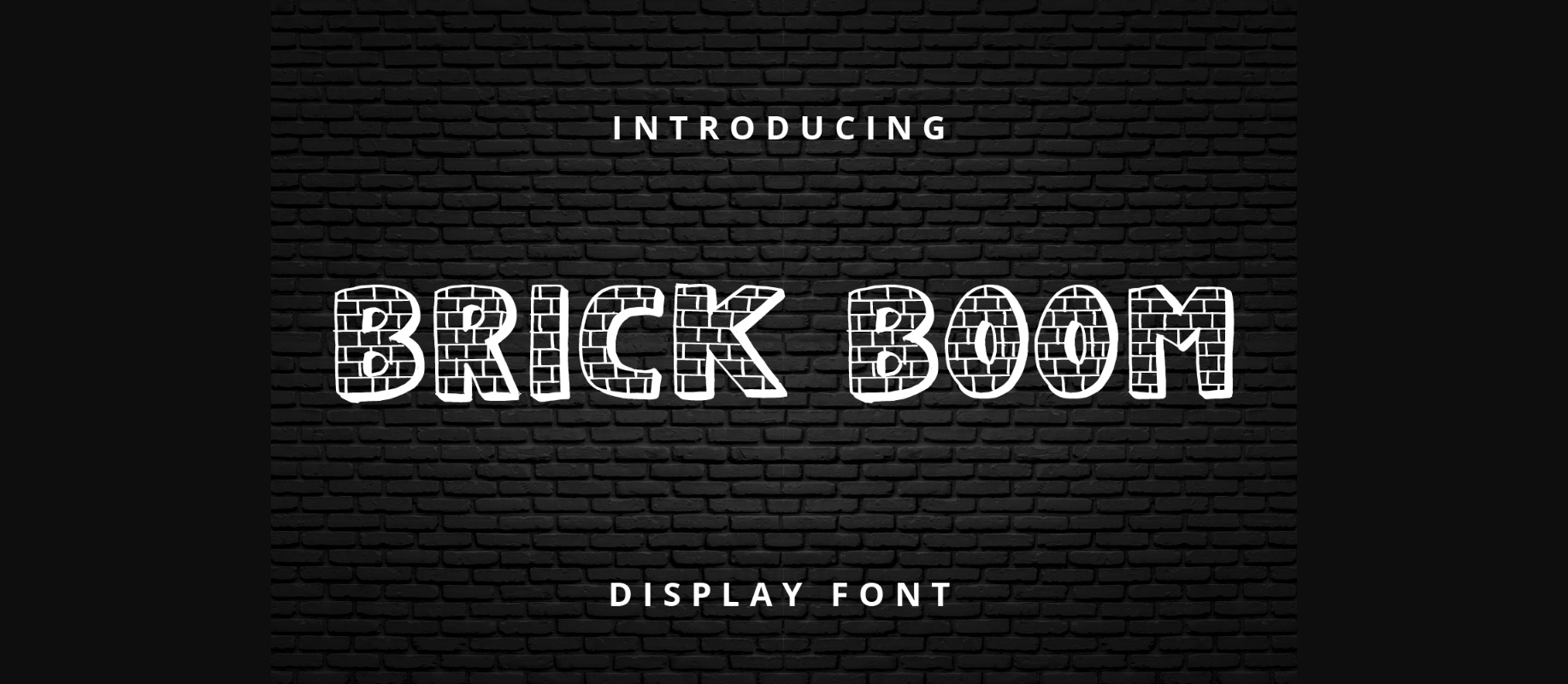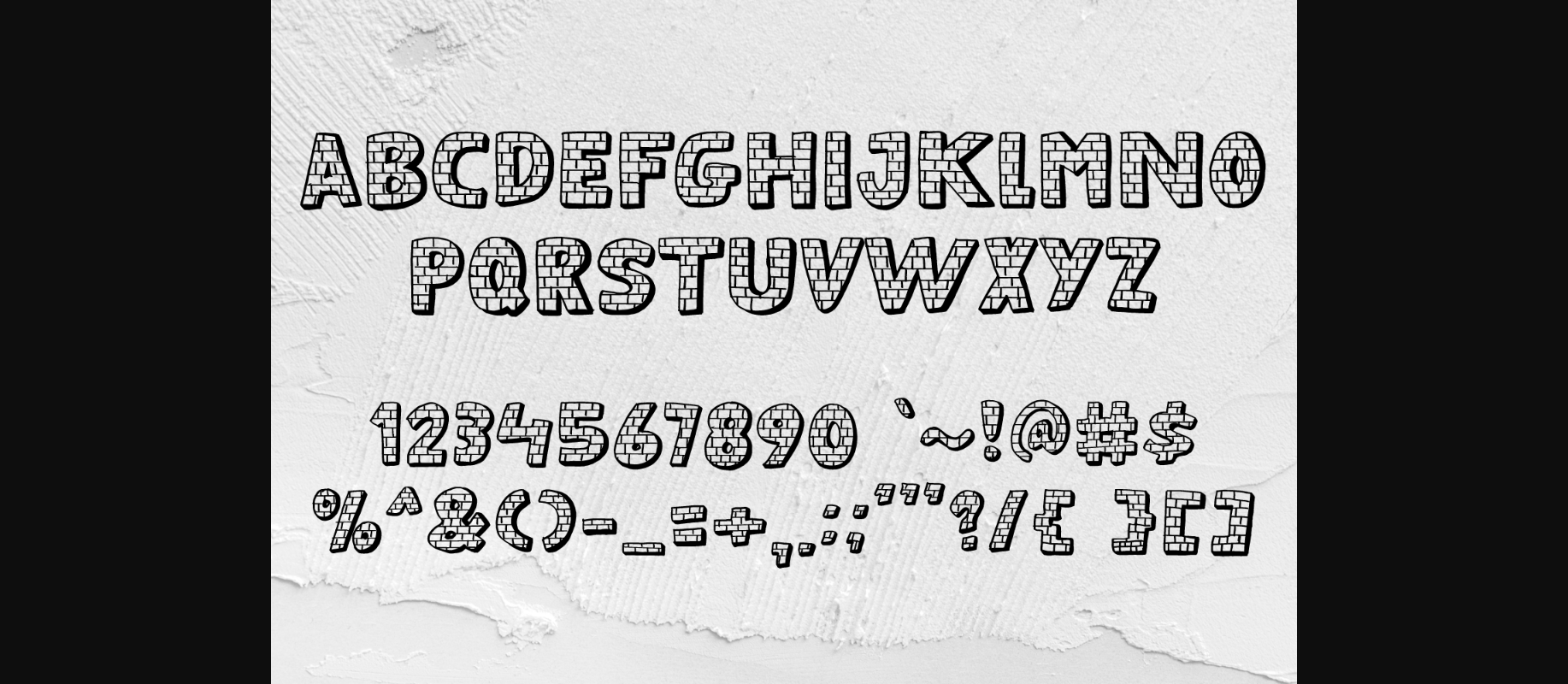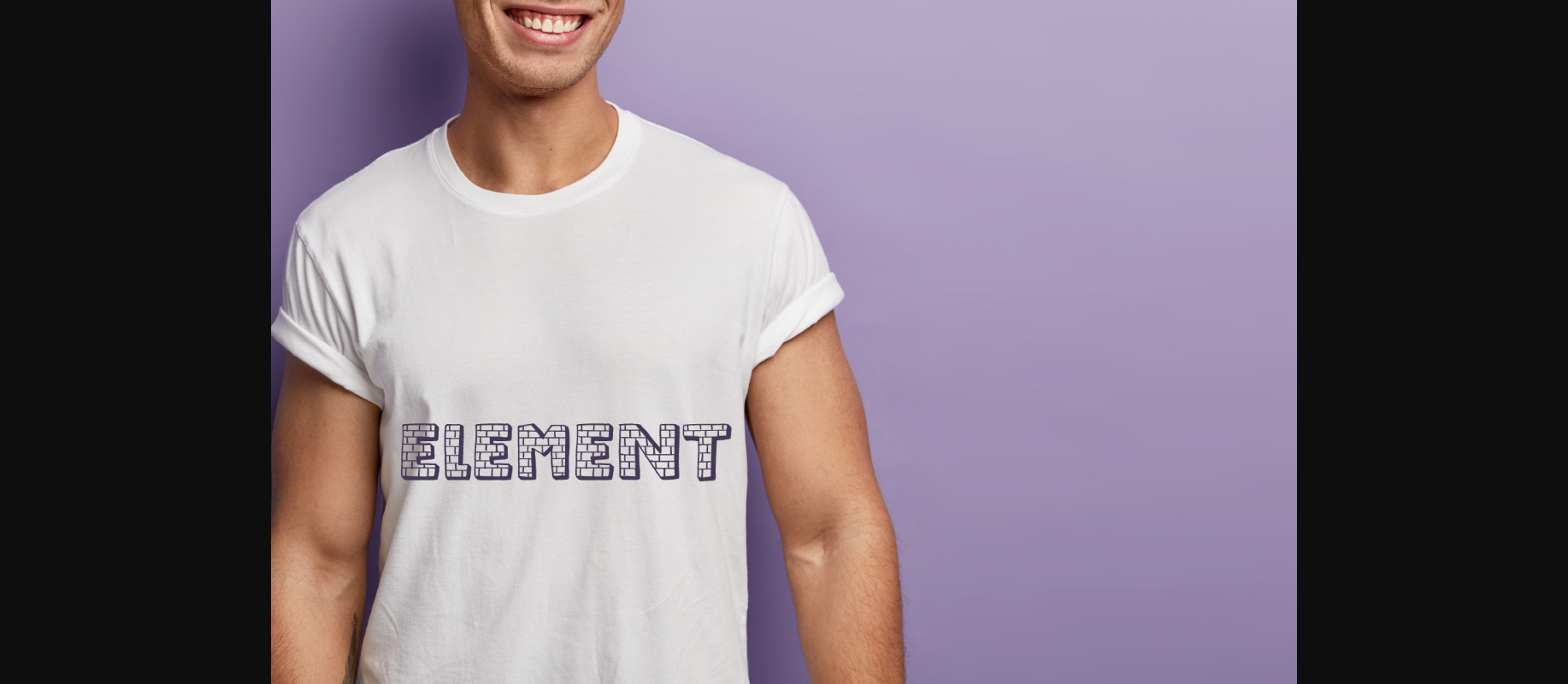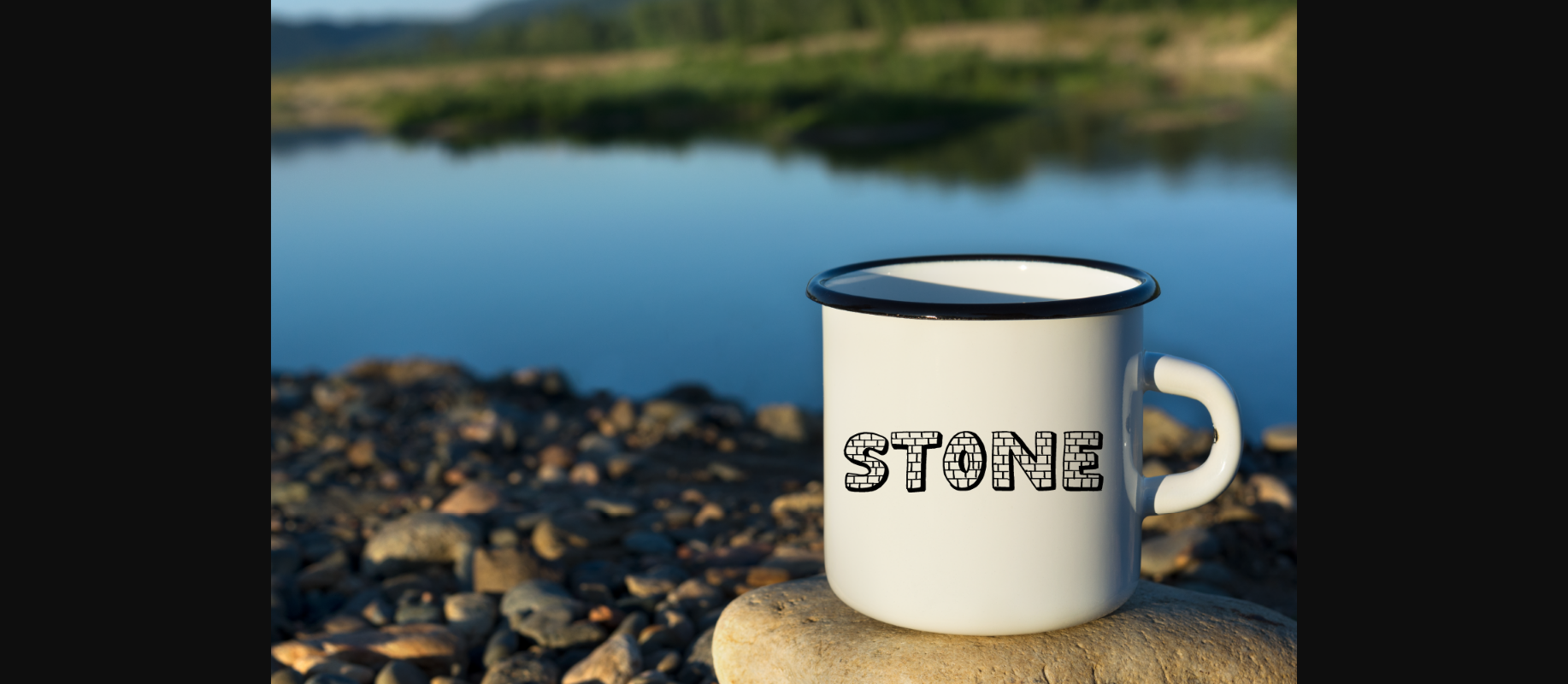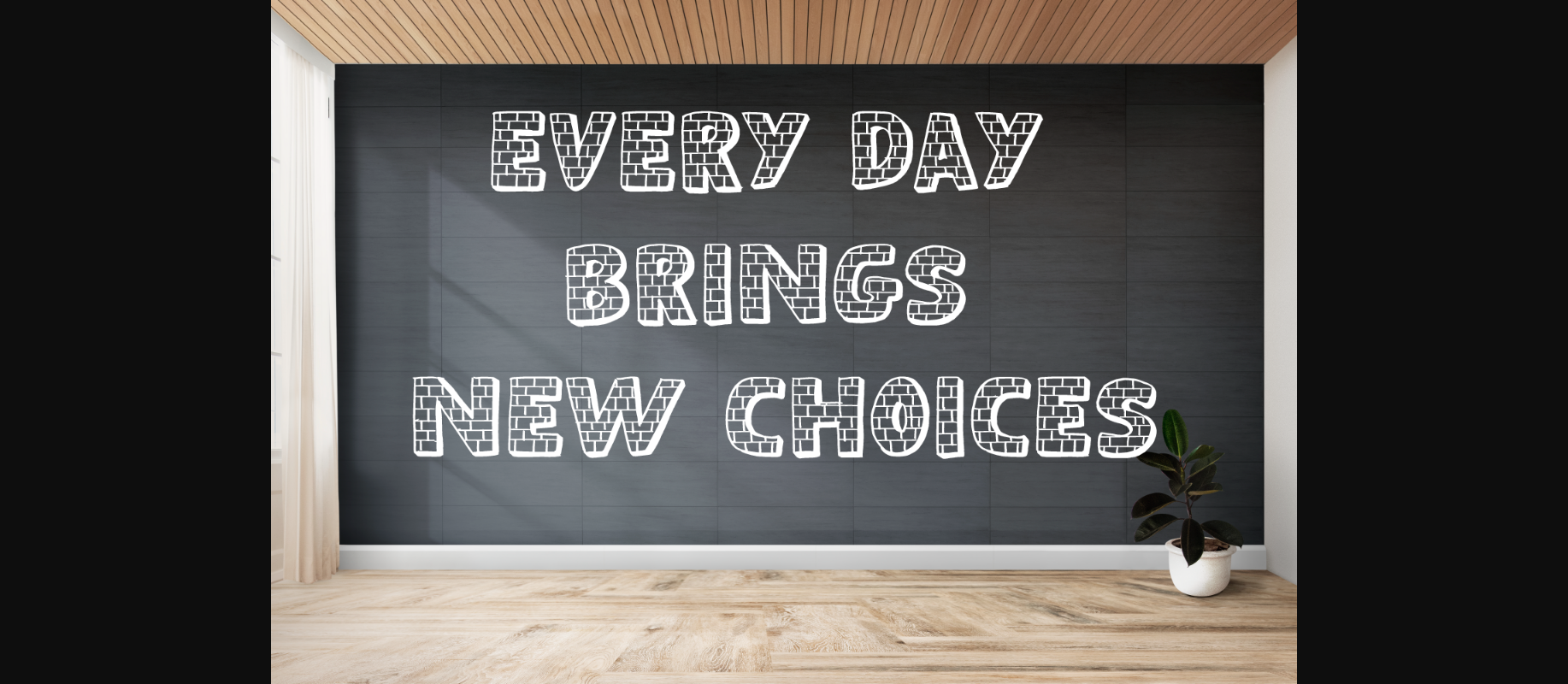
About Brick Boom Font
Brick Boom is a cool, bold and fun decorative font. Whether you are using it for cartoon-related designs, children games, quotes, titles, brand names, book covers, posters, or just any creation that requires a touch of joy, this font is a great choice.